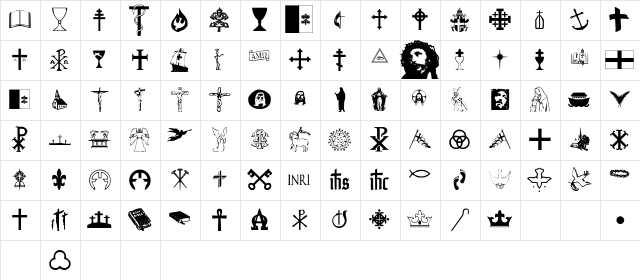
Christendom Regular Free Font
Christendom Regular
Complete Christendom Regular glyph index. Displaying only characters natively supported by Christendom Regular font.
Design Context for Christendom
Christendom is a composed and adaptable typeface that performs quietly and consistently across a wide range of design contexts.